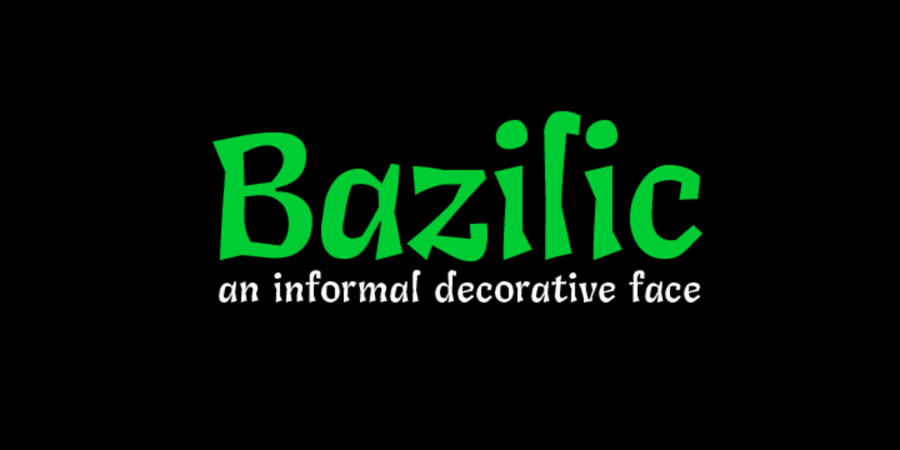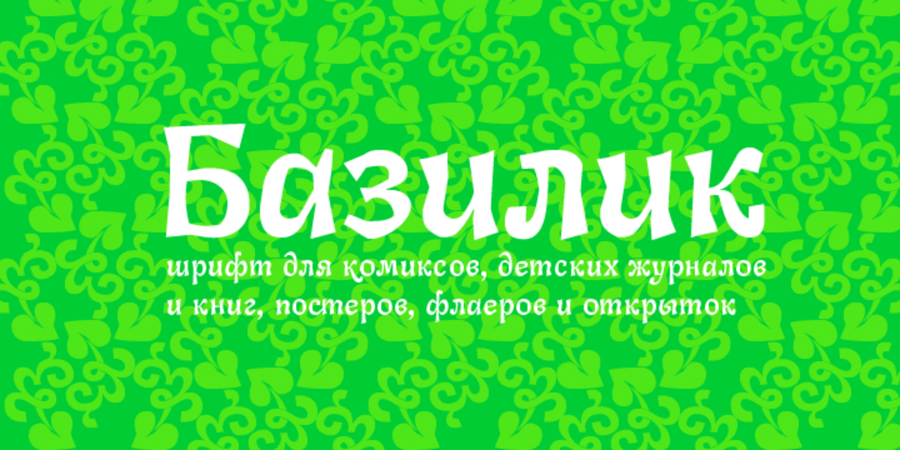
Logo font pair with CoolKids Light (1 of 19)About BazilicBazilic is an informal decorative typeface. It would look nice in greeting cards, children’s books and magazines, on candy and food packages, holiday posters and flyers. Bazilic is based on informal lettering. The font was designed by Cyrill Tkachev in 2012.
Associations for font family BazilicTypeface personality and character:
fresh, sharp, daring, original, distinctive, cutting, ethnic, natural, traditional, witty, picturesque, artistic, dynamic, handicraft, expressive, craft brewed, affable, benevolent, friendly, cheerful, provocative, playful, mischievous, ripe, delicious, children, cartoonish, hot, southern, cool, wild, alive, uncouth, uneven, bright, active, summer, green, rhythmic, crisp, broken, solid, man-made, healthy, fairy, glad, interesting, voiced, flexible, tribal, tropical, Artisanal